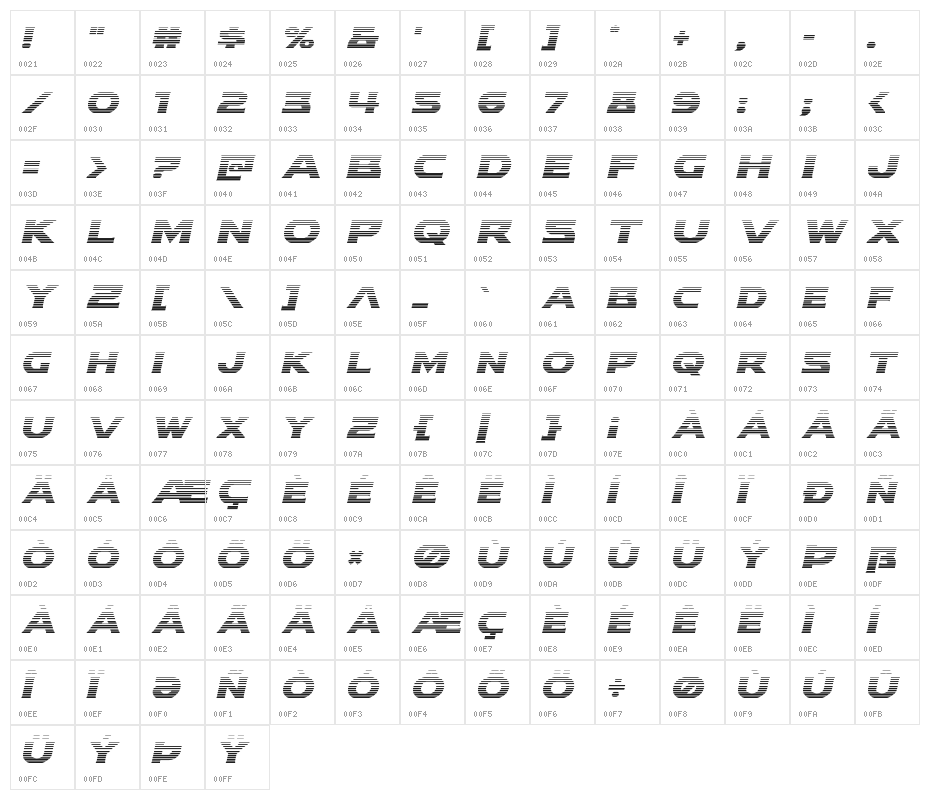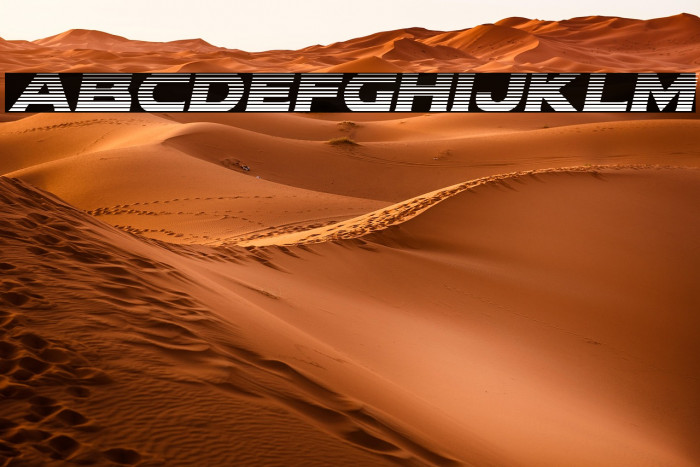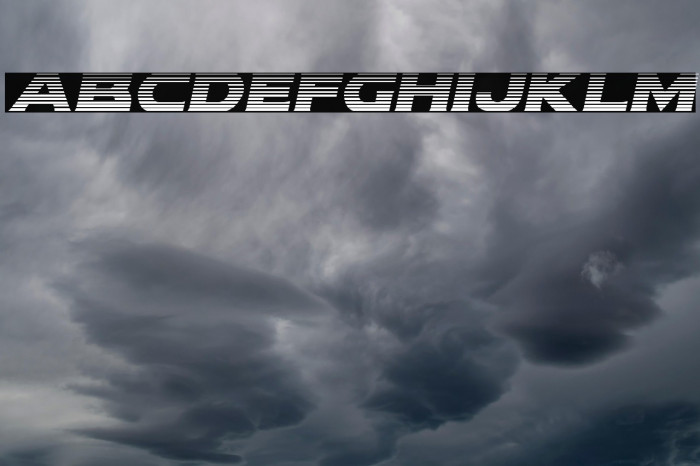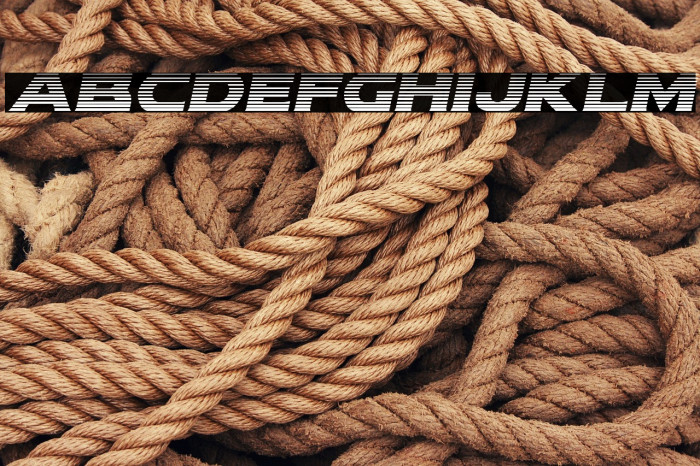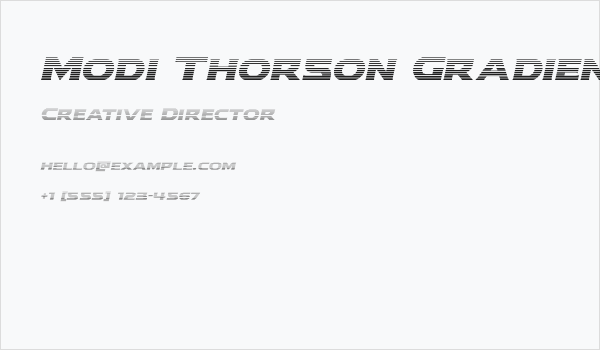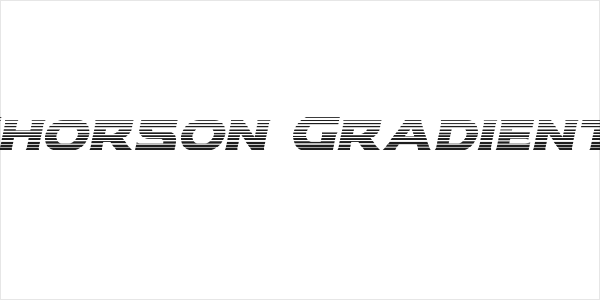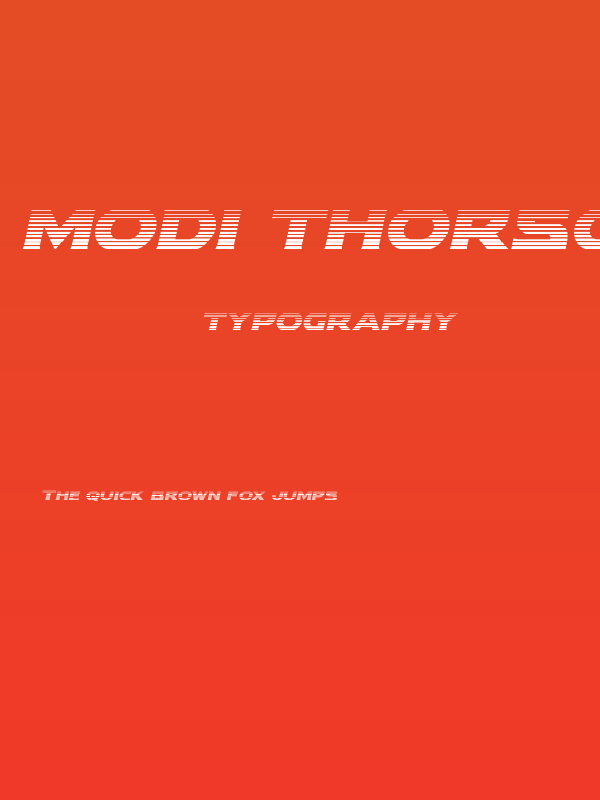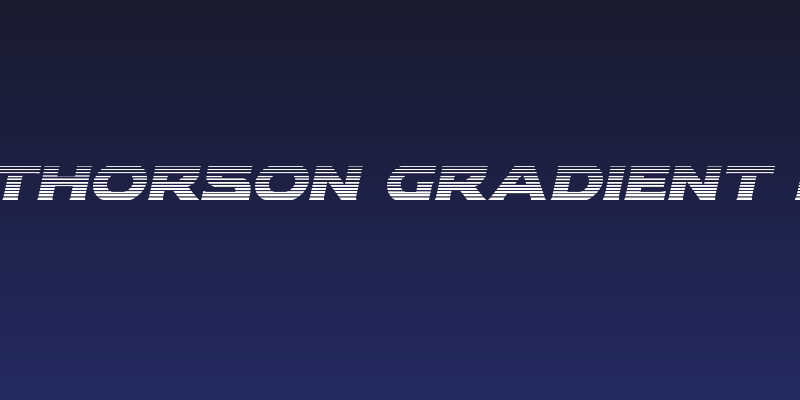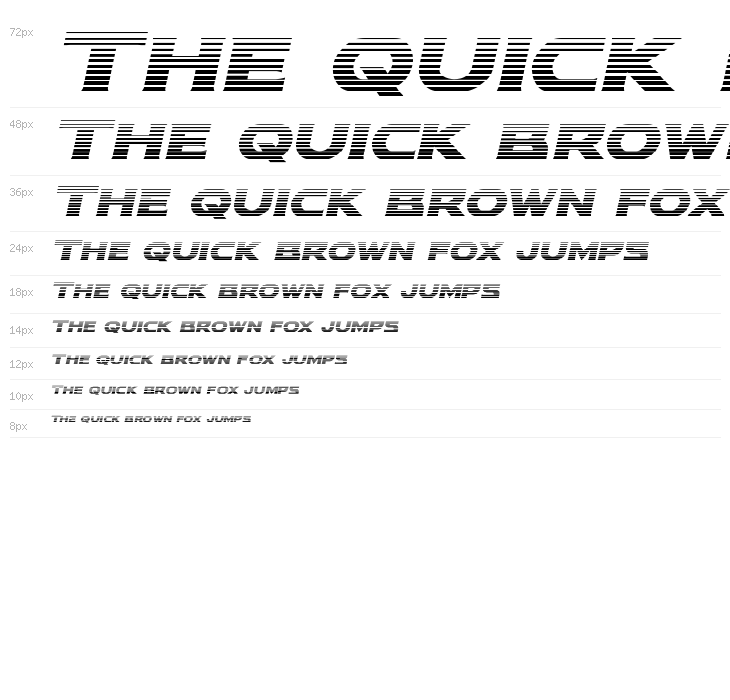
Modi Thorson Gradient Italic Font
Modi Thorson Gradient Italic Description
This font features a bold, italicized style with a distinct gradient effect created by horizontal lines running through each character. The uppercase letters are strong and dynamic, with a futuristic and industrial feel. The numbers and special characters maintain this consistent style, making the font suitable for attention-grabbing designs. The italic slant adds a sense of motion and speed, enhancing its modern aesthetic. The overall design is clean yet complex, with a unique visual texture that sets it apart from traditional fonts.
| Proposed Projects | Ideal for futuristic branding, technology-related projects, sports team logos, and dynamic poster designs. |